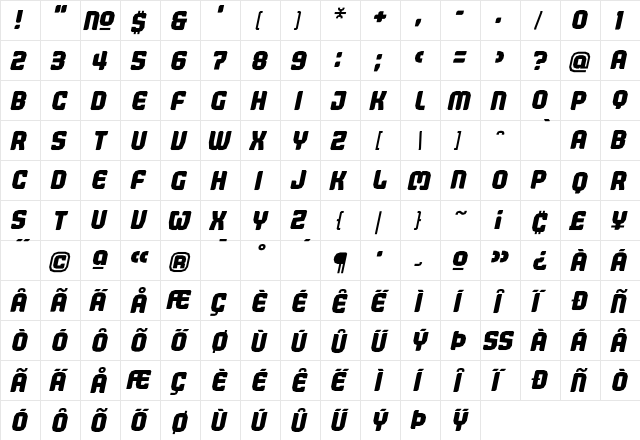
Judgement ItalicBold Font Preview
Design Context for Judgement Typeface
Judgement takes a measured approach to typography — its balanced proportions and neutral character make it a reliable workhorse for both digital and print work. Its italic angle brings a sense of urgency and motion to the letterforms. The heavy weight commands attention and anchors typographic hierarchies.
Pro Tip: Try Judgement for annotation and caption copy alongside an upright companion — the contrast in angle creates a dynamic but ordered typographic system.